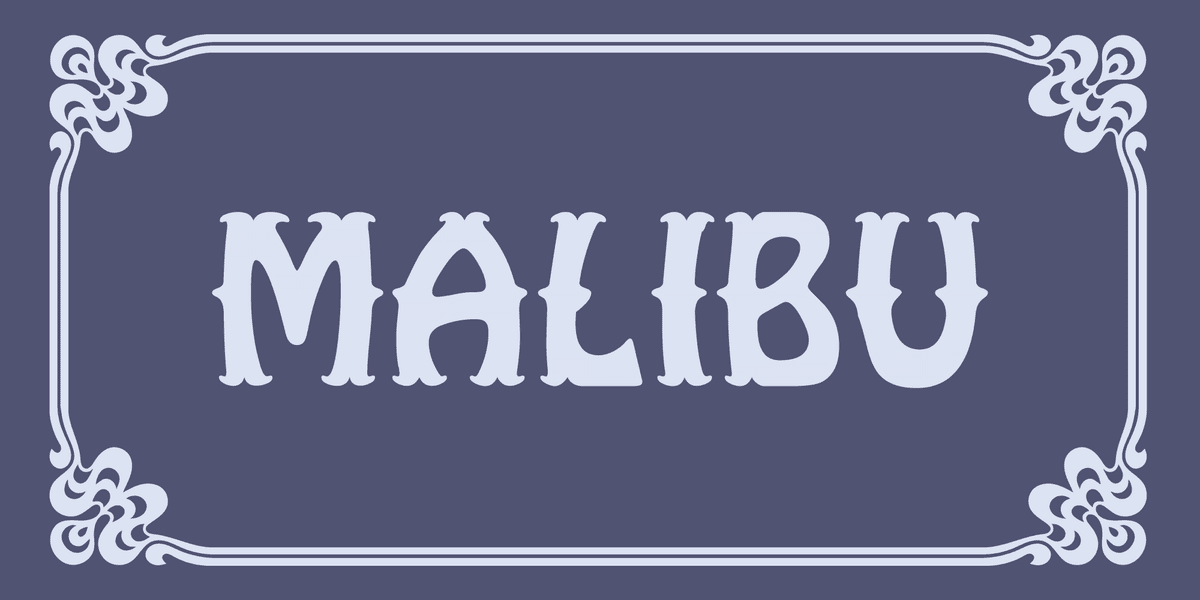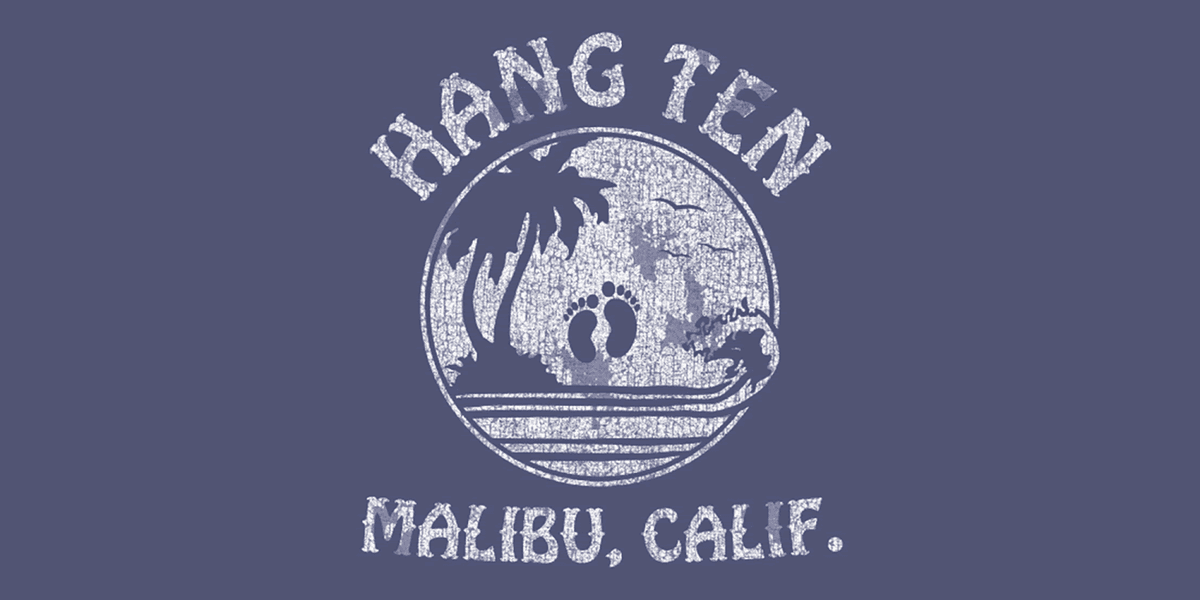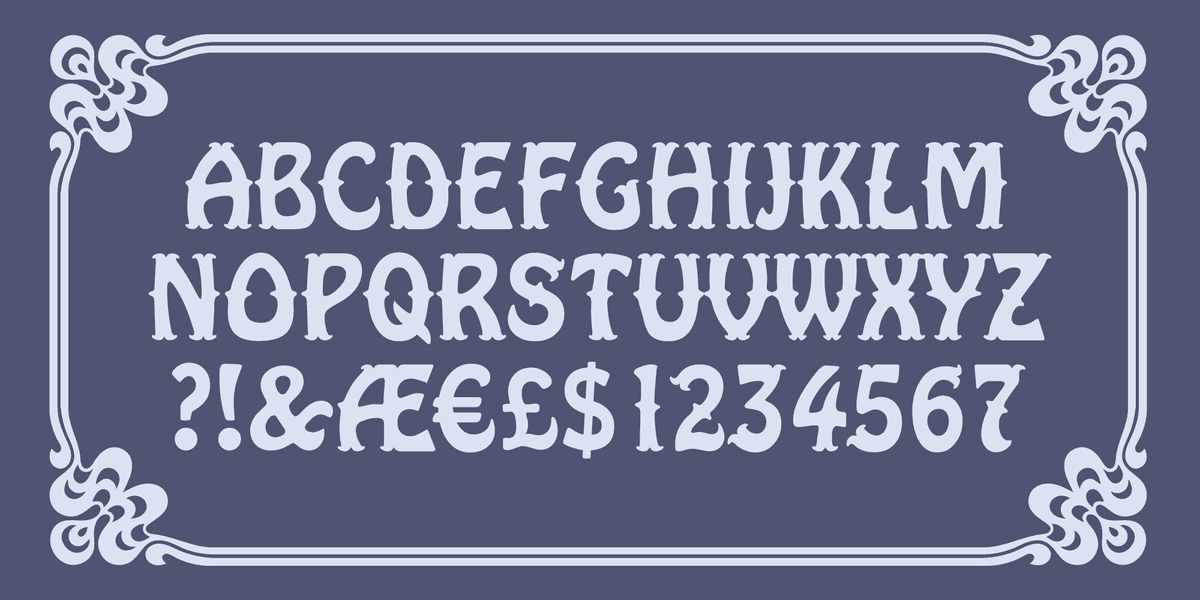
Everybody loves a good vintage t-shirt. I've been designing t-shirts almost as long as I've been designing fonts, so over the years I've picked up a few secrets of the trade. Here's one: for some reason, skulls on tees never go out of style. Here's another one: People like faux vintage shirts. The more you beat it up, the more people want it. The final secret of today's lesson: A font can make or break the shirt. This Malibu font will land you in the "make" category. It's like Hobo's laid-back Cali-vibe cousin. This font originally started out as a western font, so that will explain the cowboy boots floating around once you get into the typing!